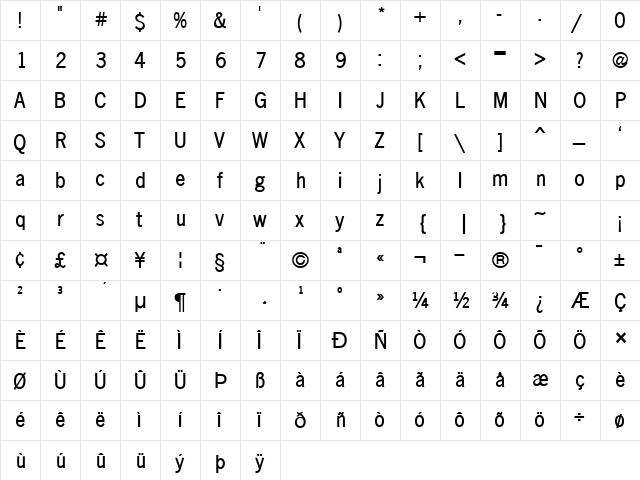
Matterhorn Bold
Design Context for Matterhorn Typeface
Matterhorn offers clean, dependable letterforms without strong stylistic allegiance, making it a practical choice for designers who need flexibility. The heavy weight commands attention and anchors typographic hierarchies.
Pro Tip: Use Matterhorn in both headline and body roles to test its range before committing to a single application.